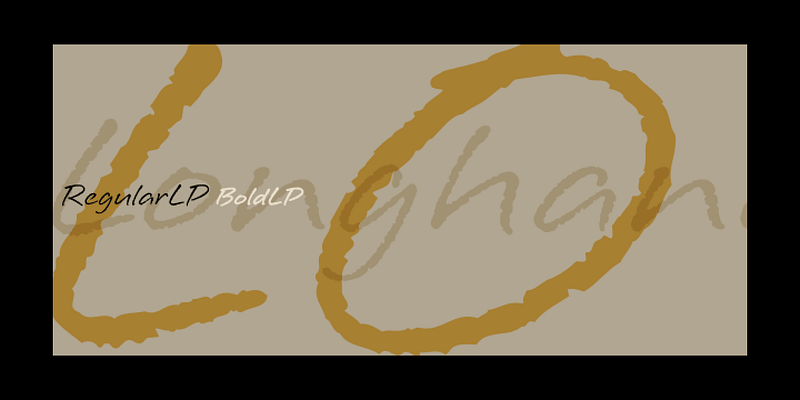
Longhand LP Font is ideal for creative design applications including handwritten invitations, personal branding projects, artisanal product packaging, greeting cards, wedding stationery, cafe menus, boutique logos, and authentic storytelling campaigns. This script typeface brings warmth and personality to projects that require a human touch and organic aesthetic.
What makes Longhand LP Font exciting is its authentic handwritten character that captures the natural flow and spontaneity of genuine penmanship. The font features organic letter variations, natural connecting strokes, and subtle imperfections that create an intimate, personal connection with readers. Its casual elegance makes every design feel crafted with care and attention.
The Longhand LP Font family includes multiple stylistic variations such as Regular, Bold, Light, and decorative alternates with swashes, ligatures, and contextual characters. These options provide extensive customization possibilities for creating unique, personalized typographic expressions that feel genuinely handcrafted.
This distinctive script typeface offers unmatched authenticity in an increasingly digital world. Creative professionals choose Longhand LP Font Free Download for projects that demand genuine human connection and emotional resonance. The font's organic qualities make it perfect for brands and designers who want to communicate authenticity, creativity, and personal touch. Its versatile nature allows seamless integration across various media while maintaining the charming characteristics that make handwritten typography so appealing and effective.